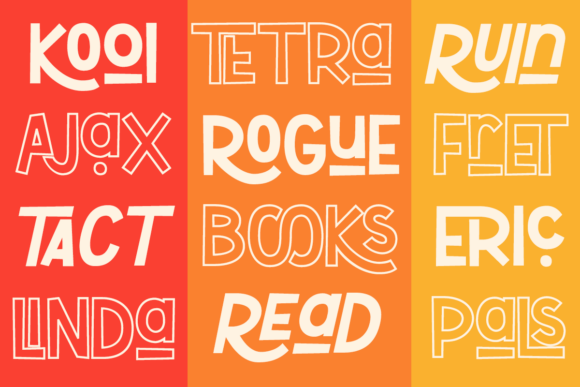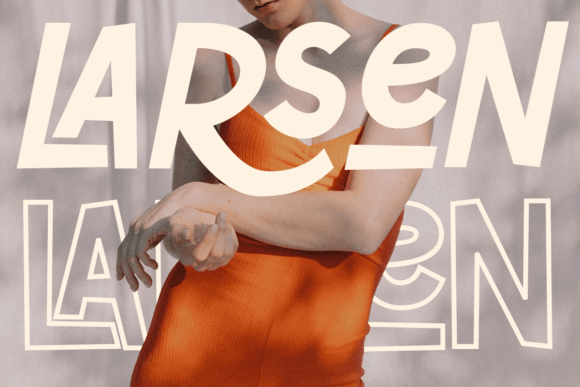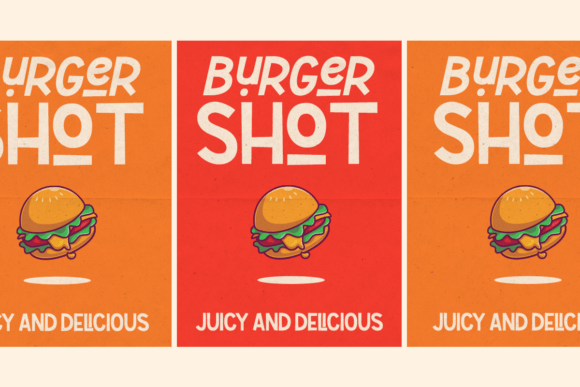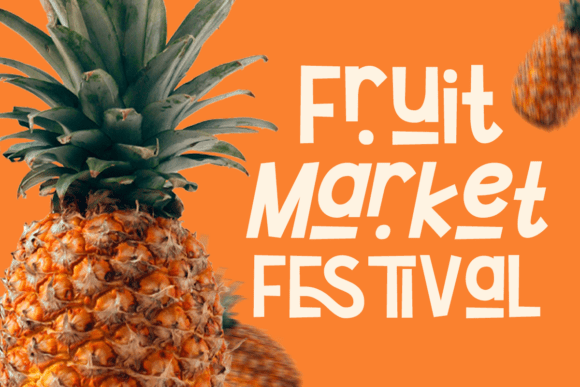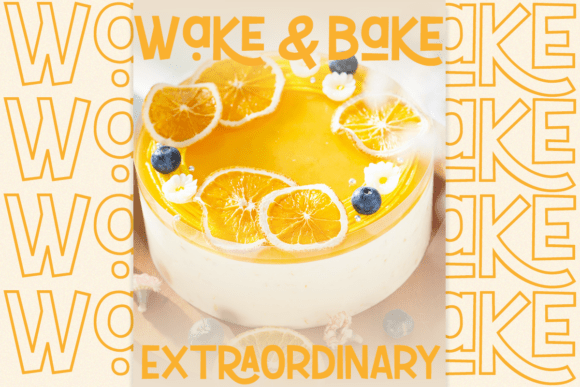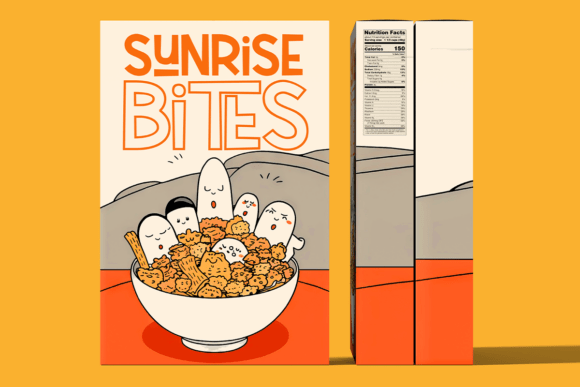
Introduction to Korachi Font
As a designer, there’s nothing quite like the rush of creating a new project that sparks joy and brings a smile to your face. Whether it’s a logo, greeting card, or poster, the right font can make all the difference in capturing the essence of your creative vision. That’s where the Korachi Font comes in – a delightful and charming font that’s sure to add a playful touch to your design.
With its numerous ligatures and stylistic alternatives, the Korachi Font is the perfect design resource for those seeking a high-quality font that’s both fun and versatile. Not only does it offer a free download with a transparent background, but its carefully kerned and designed characters make it a breeze to use, even for the most complex projects.
For designers looking to elevate their creative project with a unique and eye-catching touch, the Korachi Font is an invaluable asset. Its charming character and wide range of applications make it an essential addition to any design toolkit.
Korachi Font
- Unique Hand-Drawn Style: Korachi Font offers a distinctive, hand-drawn aesthetic that can elevate any creative project.
Honest Review: Korachi Font
As a designer, I’m always on the lookout for high-quality design resources to elevate my creative projects. The Korachi Font is one such resource that caught my attention, and I’m excited to share my thoughts on it.
What works well: ✨ The Korachi Font is available for free download, which is a major plus for designers working on tight budgets. The font is also designed with a transparent background, making it easy to integrate into various design applications. The font’s unique style and elegant aesthetic make it a great addition to any design project.
- Unique and elegant design style
However, there are a few limitations: ⚠️ The font’s compatibility may be limited to certain design applications, and it may not be suitable for use in small text sizes. Additionally, the font’s design style may not appeal to all designers, so it’s essential to review the font’s samples before using it in your project.
Overall, the Korachi Font is a solid design resource that can add a touch of elegance to your creative projects. While it has its limitations, the font’s unique style and transparent background make it a valuable addition to any designer’s toolkit.
The Korachi Font is a high-quality design resource ideal for creative projects. It’s available for free download with a transparent background, making it versatile for various applications.
Tips for Getting the Most Out of Korachi Font
Experiment with different font sizes, colors, and combinations to achieve the desired visual effect. Use the font in conjunction with other design elements, such as images, icons, or shapes, to create engaging designs.
The Korachi Font is suitable for various creative projects, including:
- Social media graphics and advertising
- Posters, flyers, and brochures